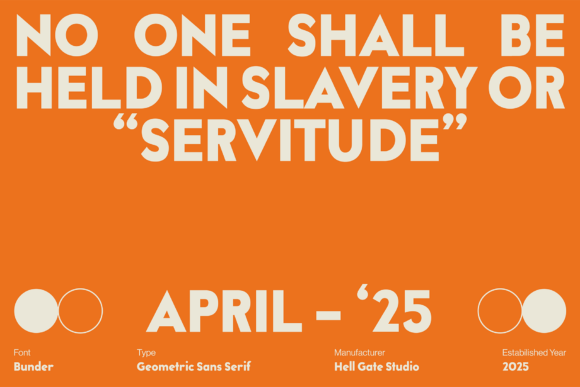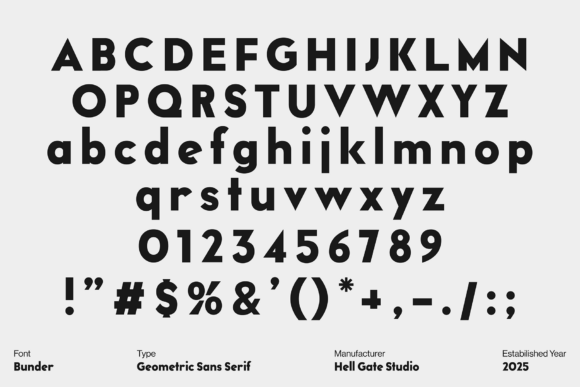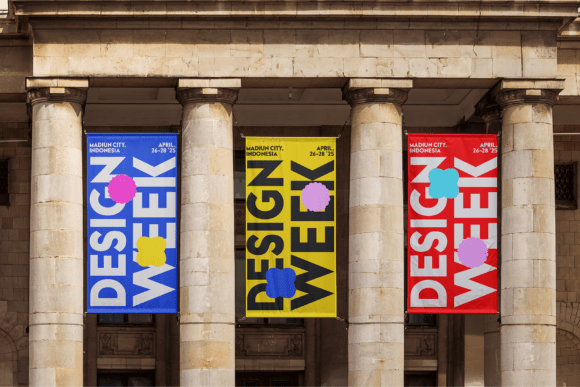
Bunder Font: Elevate Your Designs with Elegance and Sophistication
In the world of typography, a well-crafted font can make all the difference in transforming ordinary designs into extraordinary masterpieces. Introducing the Bunder Font, a geometric sans serif font that exudes elegance and sophistication. This versatile font is designed to cater to the needs of designers and crafters, providing a user-friendly experience that allows for effortless text and color editing.
What Makes Bunder Font Stand Out?
Crafted with meticulous attention to detail, the Bunder font ensures high-quality rendering for optimal visual appeal. Its geometric sans serif design gives it a modern and sleek look, making it perfect for a wide range of design applications, from luxury branding to digital marketing materials. The font’s clean lines and precise curves create a sense of harmony and balance, making it easy to read and visually appealing.
Key Features of Bunder Font
- Geometric Sans Serif Design: The Bunder font boasts a modern and sophisticated geometric sans serif design, perfect for creating elegant and refined designs.
- User-Friendly: The font is incredibly user-friendly, allowing for effortless text and color editing, making it easy to work with for designers of all levels.
- High-Quality Rendering: Crafted with attention to detail, the Bunder font ensures high-quality rendering for optimal visual appeal, making it perfect for printing and digital applications.
Unlock Your Creative Potential with Bunder Font
The Bunder font is designed to help designers and crafters unleash their creative spirit and transform ordinary works into extraordinary masterpieces. With its versatility and user-friendly features, this font is perfect for a wide range of design applications, including:
- Luxury Branding: Create elegant and sophisticated brand identities with the Bunder font, perfect for high-end luxury brands.
- Digital Marketing Materials: Use the Bunder font to create visually appealing digital marketing materials, such as social media graphics, email templates, and landing pages.
- Print Design: The Bunder font is perfect for print design applications, including business cards, brochures, and posters.
Tips for Using Bunder Font Effectively
To get the most out of the Bunder font, here are some tips for using it effectively:
- Experiment with Colors: The Bunder font allows for effortless color editing, so don’t be afraid to experiment with different colors and combinations.
- Play with Typography: Use the Bunder font to create visually appealing typography, experimenting with different font sizes, styles, and arrangements.
- Pair with Images: Pair the Bunder font with high-quality images to create stunning graphics and designs.
In conclusion, the Bunder Font is a versatile and elegant geometric sans serif font that is perfect for designers and crafters looking to elevate their designs. With its user-friendly features, high-quality rendering, and OTF file included, this font is a must-have for anyone looking to create stunning graphics and superb designs. Unleash your creative spirit with the Bunder font and transform ordinary works into extraordinary masterpieces.